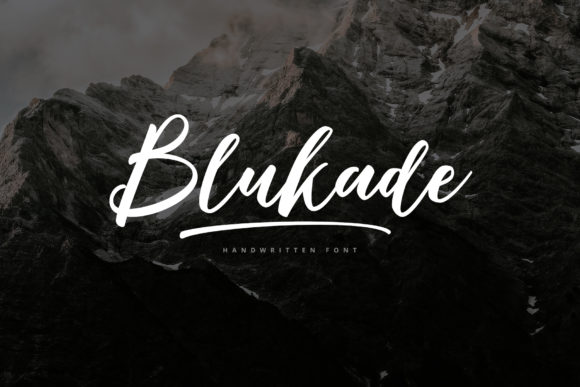
Indulge in the enchanting allure of Blukade Font, a meticulously crafted script that will captivate your senses with its timeless elegance. Immerse yourself in the world of handwritten artistry, where each graceful stroke speaks volumes.
Blukade Font is a symphony of curves and flourishes that evoke the charm of yesteryear. Its authentic feel transports you to a realm of romance and sophistication, inviting you to create breathtaking works of art that will leave an unforgettable impression.
Picture the joy of crafting exquisite wedding invitations, their ethereal script flowing effortlessly across the page. Imagine designing enchanting stationary art, each piece a testament to your impeccable taste and attention to detail. Let your social media posts blossom with eye-catching messages, penned in the captivating strokes of Blukade Font. Send heartfelt greetings through adorable cards, their sweet sentiments amplified by the font's endearing charm.
With Blukade Font, your creative vision knows no bounds. Embrace the elegance of hand-lettered masterpieces, knowing that every word you write will resonate with authenticity and style. Let your imagination soar, and let Blukade Font guide you on an extraordinary journey of artistic expression.
Unlock the power of Blukade Font today, and experience the transformative magic of handwritten artistry. Fall head over heels in love with its delicate strokes and enchanting allure, and prepare to captivate the world with your creations.